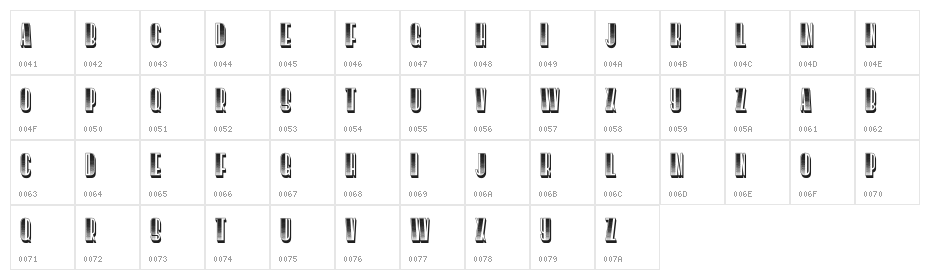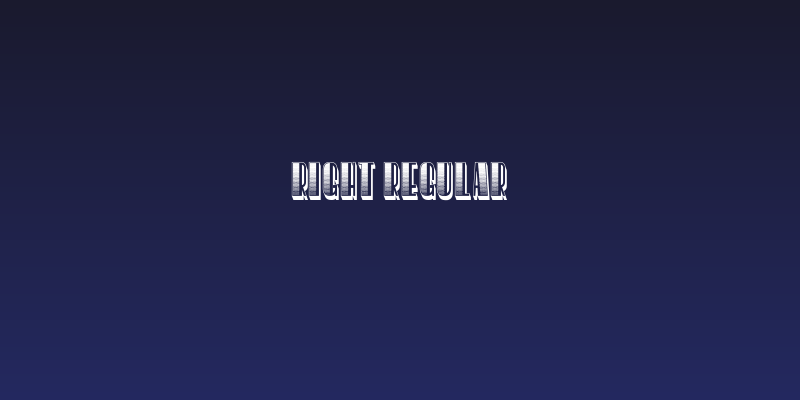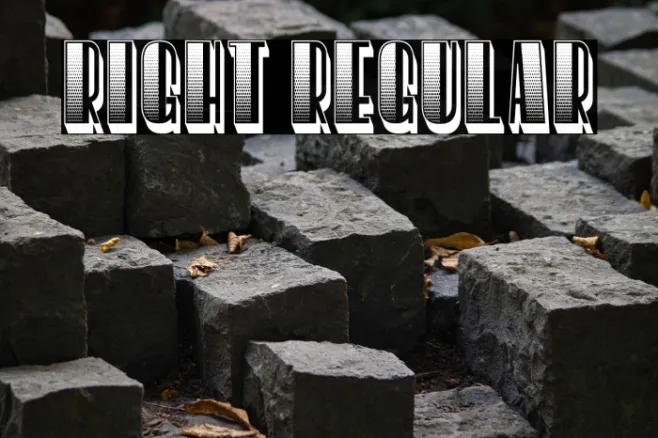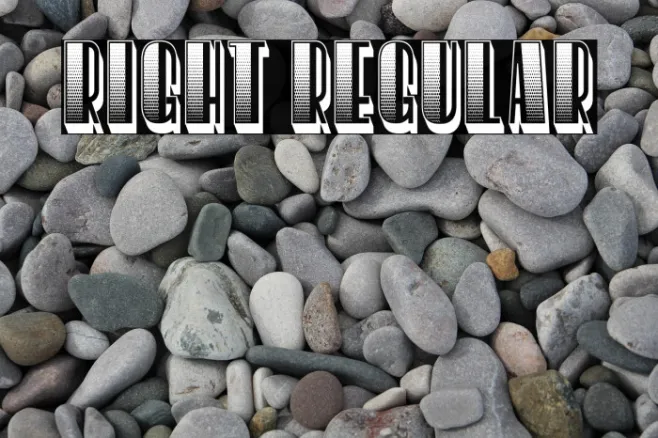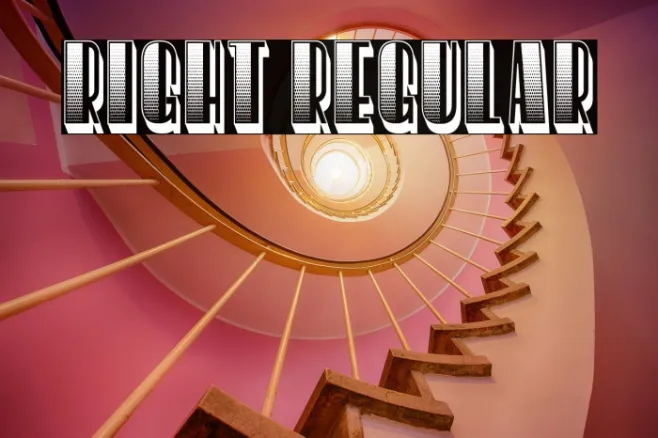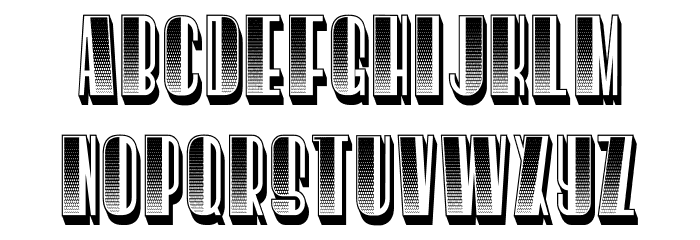
Right Regular Font
Right Regular Description
This font features a bold, three-dimensional appearance with a distinct shadow effect that gives it a striking, impactful look. The letters are uppercase, with a strong geometric structure and a textured fill that adds depth and visual interest. The design is reminiscent of vintage poster fonts, often used in signage and advertisements. The bold outlines and shadowing create a sense of movement and dynamism, making it ideal for attention-grabbing headlines and titles. The font's unique style combines elements of both retro and modern design, making it versatile for various creative projects.
| Proposed Projects | Ideal for vintage posters, signage, branding, and any project requiring a bold, eye-catching typeface. |